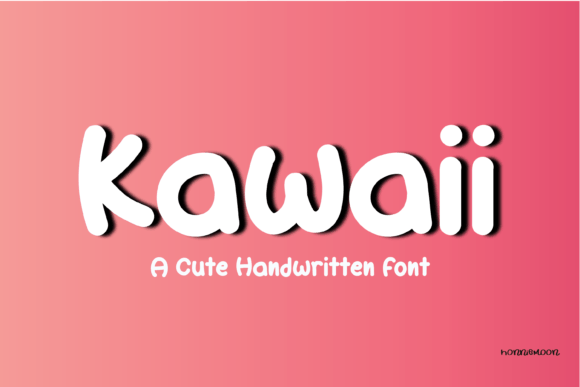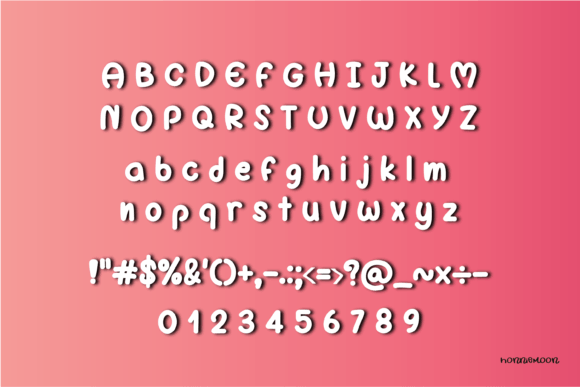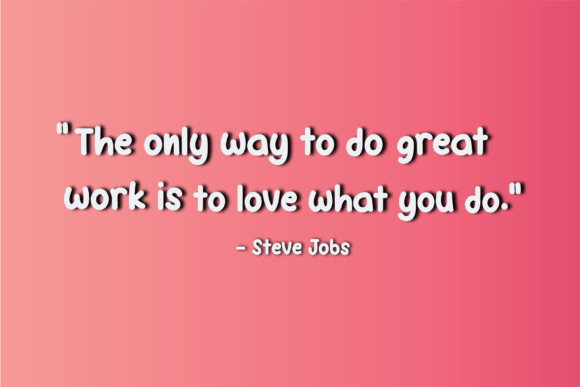
Kawaii Font: A Cute & Jolly Handwritten Font for Cricut & DIY Designs
About the Kawaii Font
Add a touch of class to your work with the Kawaii Font, a truly exceptional typeface. Kawaii is a cute and friendly font. It looks cute and jolly and will enhance each of your designs. The only limit is your imagination. Add this colorful and bold display font to each of your creative ideas and notice how it makes them come alive!
Kawaii’s playful boldness makes it ideal for headlines, short-form text in branding materials, and eye-catching packaging designs. It’s also well-suited for posters and social media graphics where a fun, approachable aesthetic is desired. However, its highly stylized forms make it less effective for body text or UI elements requiring high readability.
Consider pairing Kawaii with a clean sans-serif like Open Sans for a balanced contrast, or a more delicate script font such as Great Vibes to enhance its whimsical charm. For a bolder contrast, a geometric sans-serif like Montserrat would emphasize Kawaii’s playful energy.
Its core personality is cheerful and youthful; a perfect fit for brands targeting a younger demographic or projects requiring a lighthearted and friendly feel. Avoid using it for applications demanding seriousness or sophistication.
Kawaii Font Usage Examples
Kawaii Font Example